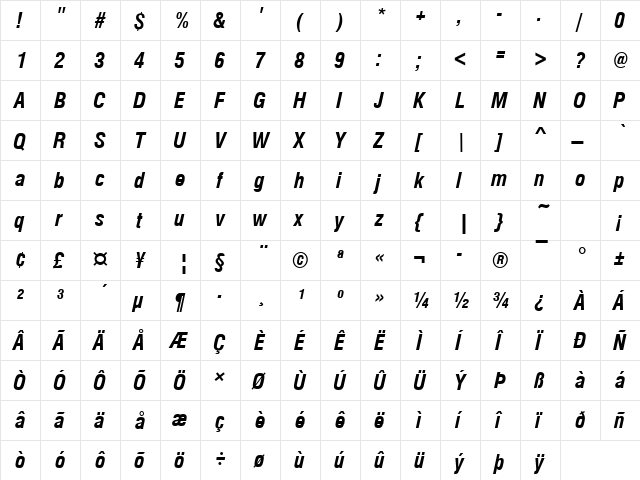
NimbusSanDCon Bold Italic Font Preview
NimbusSanDCon Bold Italic
NimbusSanDCon Bold Italic Font Details
Design Context for NimbusSanDCon Typeface
NimbusSanDCon offers clean, dependable letterforms without strong stylistic allegiance, making it a practical choice for designers who need flexibility. The dynamic lean of this cut emphasises speed and emphasis in any layout. The heavy weight commands attention and anchors typographic hierarchies.
Pro Tip: Use NimbusSanDCon for emphasis, pull quotes, and subheadings where its slanted energy can add rhythm to the layout.